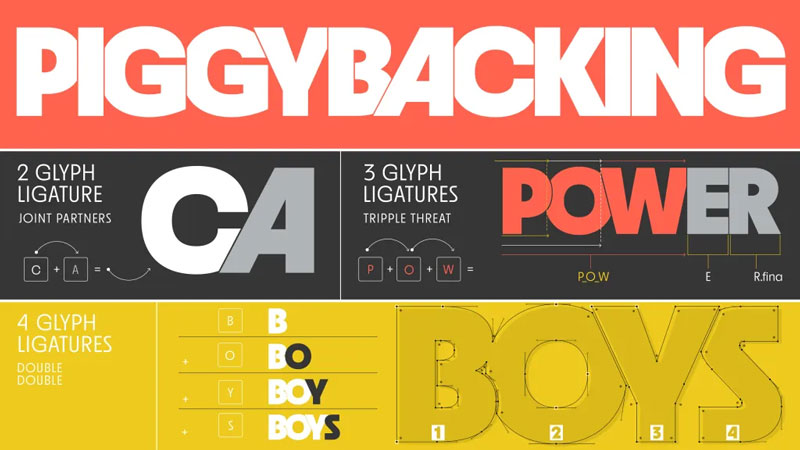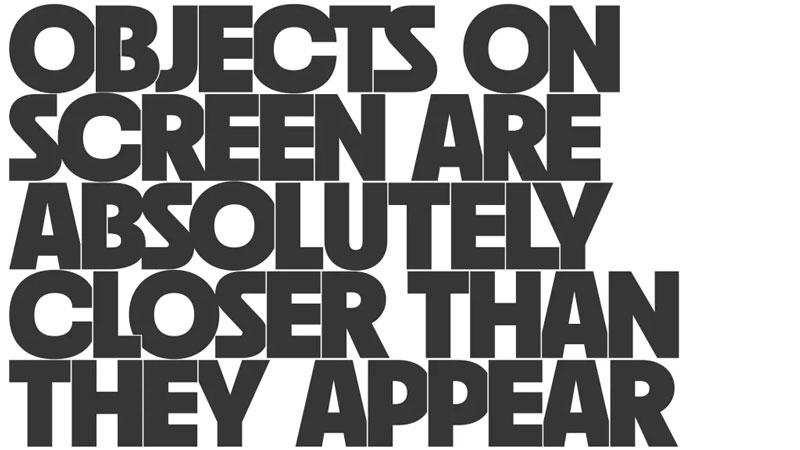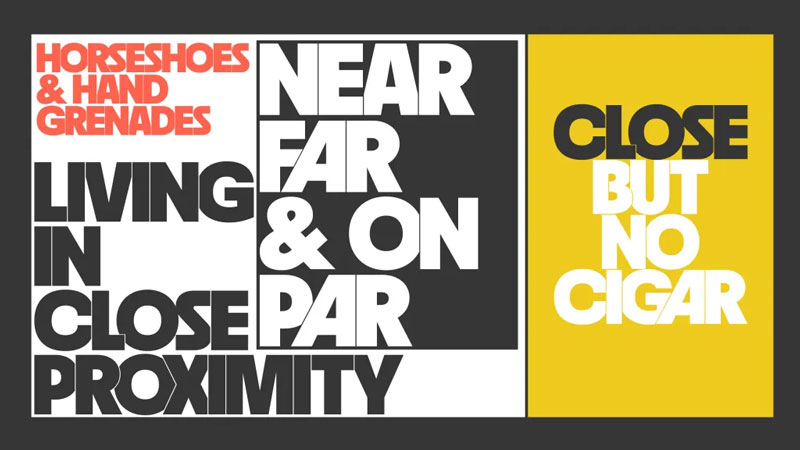
Tightle: A Bold, No-Gaps Display Face That Pushes Typography to the Edge
All Caps, No Gaps
Meet Tightle—Mark Caneso’s latest typeface that takes spacing to uncomfortably great places. This bold, in-your-face display font thrives on extreme tightness, creating lock-ups and wordmarks where letters seem to tuck behind, slide close, or nestle into one another. With clever OpenType magic, Tightle turns any text into a visually striking, tightly packed composition. Type a word, and you’ll instantly think: “That’s Tight!”
The Origin Story
Tightle’s journey began in 2022 while Caneso was designing specimens for Neighbor, another of his typefaces. Experimenting with the heaviest weight and ultra-tight spacing, he pushed negative tracking to the extreme—letting letterforms crash into each other before separating them with hairline strokes. The idea of an all-caps, zero-gaps typeface intrigued him, but he shelved it, unsure if it was genius or just a gimmick.
By 2024, the concept still excited him. Despite doubts (“Will anyone even use this?“), social media reactions—fire emojis and “take my money” comments—kept the spark alive. Tightle had already made cameos in Caneso’s work, like the “Heart All Types” tote bag and Punchlines specimen book. It was time to bring it to life.
Collaboration & Refinement
To perfect Tightle, Caneso teamed up with Fahdl Haqq, a font developer who’s worked on his previous releases (Scale, Skew). Together, they expanded Tightle into a 3,000-glyph powerhouse, with each letter featuring initial, middle, and final forms that adapt based on their position in a word.
How Tightle Works
This isn’t just a font—it’s a typographic tightrope act. OpenType features like ligatures, contextual alternates, and automatic substitutions ensure seamless letter collisions. The result? A typeface that feels like custom lettering, with every combination locking together perfectly.
Why Designers Will Love It
- Unapologetically bold – Perfect for headlines, logos, and punchy statements.
- Smart, not just tight – The tech behind the scenes makes it effortlessly functional.
- Endless versatility – With 3,000 glyphs, it handles almost any word with flair.
Tightle proves that sometimes, the best ideas come from breaking the rules—or in this case, crashing through them.